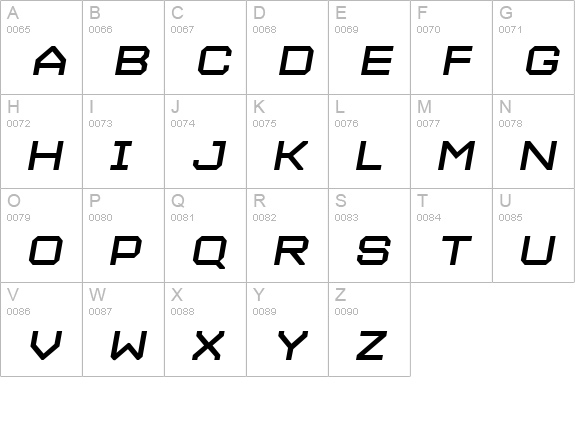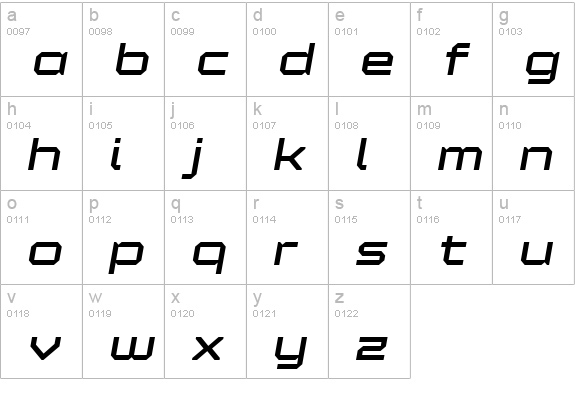
Maetl BoldOblique Font Details
Maetl BoldOblique font is a stunning display of artistic flair and typographic excellence. With its bold and oblique design, this font exudes confidence and sophistication. The elegant curves and sharp angles create a visual impact that is both striking and memorable. Perfect for headlines, titles, logos, and any design project that requires a touch of modernity and boldness, Maetl BoldOblique font stands out from the crowd. Its unique style adds a sense of excitement and energy to any text, making it ideal for capturing attention and leaving a lasting impression. What makes Maetl BoldOblique font even more remarkable is that it is freely available to download at FontsMarket.com. This means that designers, creatives, and enthusiasts around the world can access and utilize this incredible font without any cost or restrictions. Whether you're a professional designer or an aspiring artist, Maetl BoldOblique font offers an opportunity to elevate your designs and bring them to life. With its versatility and timeless appeal, Maetl BoldOblique font can be used in various design contexts, from digital platforms to print media. Its legibility ensures that your message is conveyed with clarity and impact, while its unique aesthetic adds a touch of sophistication and style. Whether you're creating a poster, a website, a magazine layout, or any other design project, Maetl BoldOblique font is the perfect choice to make your text stand out. Its boldness and oblique nature make it a true attention-grabber, ensuring that your message is noticed and remembered. Download Maetl BoldOblique font for free at FontsMarket.com and let your creativity soar. Explore its endless possibilities and unlock the full potential of your designs. With Maetl BoldOblique font, you have the power to captivate and inspire with every word.